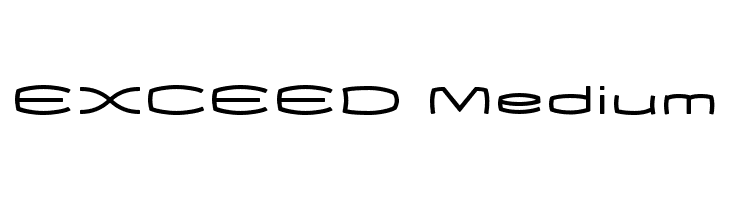
A geometric, angular font with a blocky, digital appearance.
A clean, modern sans-serif font with uniform stroke width and excellent readability.
A bold, modern typeface with clean lines and geometric influences.
A sleek, modern font with a futuristic and dynamic design.
A bold, geometric font with rounded edges and a modern, playful style.
A geometric, tech-inspired font with a modern, Hangul-like design.